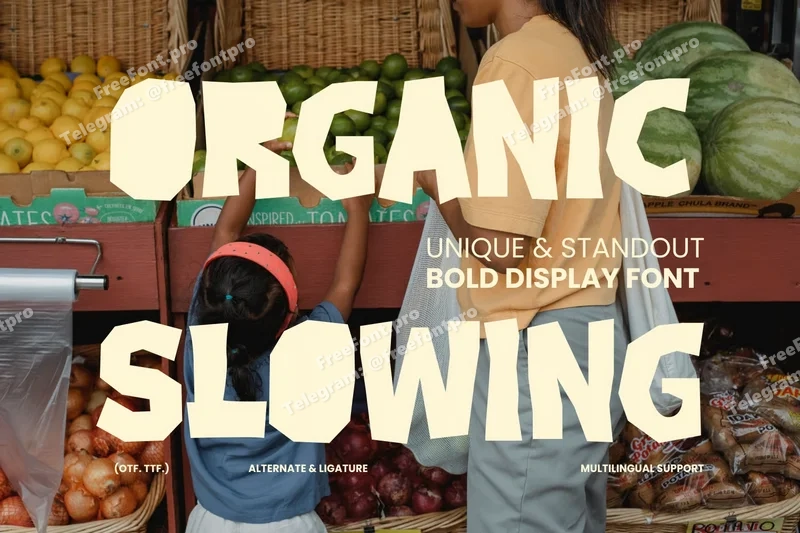
Organic Slowing – Food Font
ORGANIC SLOWING is a unique, hand-crafted bold font that celebrates slow living and authentic flavor. Inspired by farmers’ markets, kitchen crafts, and home cooking, it’s perfect for coffee, bakery, or restaurant branding that values quality over quantity. The organic letter shapes add personality to menu designs and food packaging.
From burger stalls to veggie cafés, ORGANIC SLOWING captures the honest charm of handmade design. It’s the ultimate choice for creating a genuine brand identity—whether for pizza, candy, or chocolate labels, it brings a heartfelt and natural visual flavor.